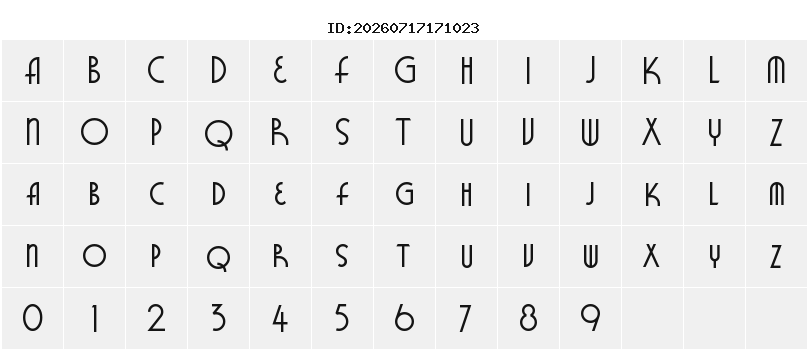
BigTentPlayersNF.ttf is a modern, elegant sans-serif font designed for ultimate readability and visual harmony. Perfect for branding, headlines, web design, and print materials.